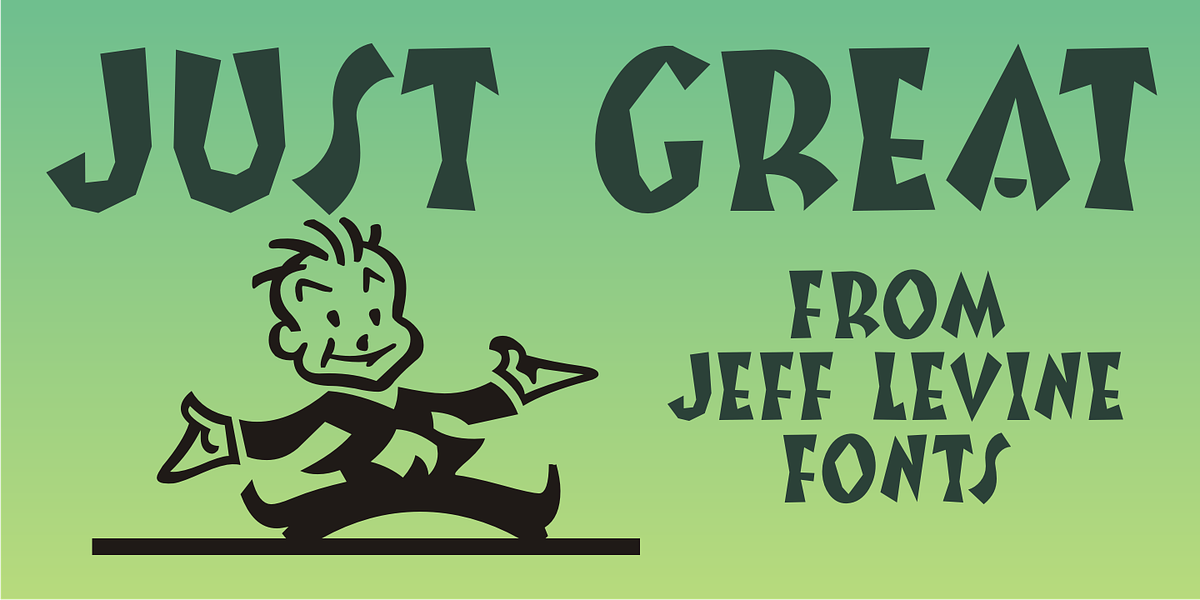
Just Great JNL
A 1940s British music collection of classical music piano pieces entitled "The Great Masters Series" had its title hand-lettered in a free form, casual sans serif with a cartoon style. This is now available as Just Great JNL.